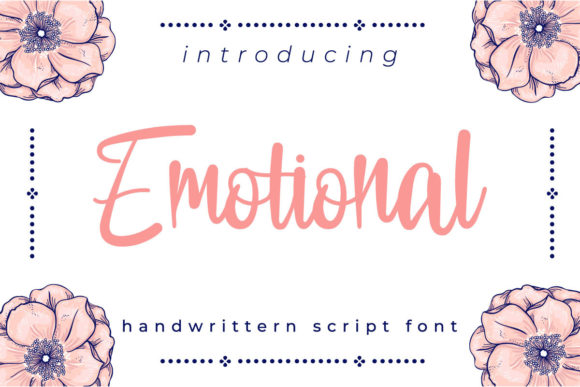
Introducing Emotional Script Font: Elevate Your Designs with Elegance
Are you on the hunt for a font that exudes sophistication, elegance, and a touch of emotional depth? Look no further than the Emotional Script Font, a stunning script font designed to capture the essence of refined typography. With its ravishing style and versatility, this font is poised to become your go-to choice for creating breathtaking designs that leave a lasting impression.
The Distinct Charm of Emotional Script Font
Emotional Script Font stands out from the crowd with its unique blend of classic script elements and modern flair. Its distinct and graceful appearance makes it perfect for a wide range of design projects, from wedding invitations and branding materials to digital content and craft projects. The font’s intricate details and flowing lines add a touch of sophistication, making any design look polished and professional.
Emotional Script Font offers a world of creative possibilities for designers and crafters. Here are just a few ways you can leverage this stunning font to elevate your designs:
- Wedding and Event Design: Create exquisite wedding invitations, save-the-date cards, and event branding materials that exude romance and sophistication.
- Branding and Packaging: Use Emotional Script Font to develop a distinctive brand identity that sets your business apart from the competition.
- Digital Content: Add a touch of elegance to your blog posts, social media graphics, and email newsletters with this versatile font.
- Crafting and DIY Projects: Perfect for crafters, this font can be used for a variety of DIY projects, such as handmade cards, journaling, and scrapbooking.
Why Choose Emotional Script Font?
With so many fonts available, why choose Emotional Script Font? Here are just a few compelling reasons:
- Unique Style: Emotional Script Font boasts a distinctive style that will set your designs apart from the crowd.
- Versatility: This font can be used for a wide range of design projects, from digital content to print materials.
- High-Quality: Emotional Script Font is crafted with attention to detail, ensuring a high-quality appearance in any design.
Get Ready to Fall in Love with Emotional Script Font
In conclusion, Emotional Script Font is a game-changer for designers and crafters seeking to infuse their work with elegance and sophistication. Its unique style, combined with PUA encoding, makes it an indispensable tool in any design arsenal. Whether you’re working on a wedding invitation, branding materials, or a DIY project, this font is sure to captivate your audience and leave a lasting impression. So why wait? Fall for the ravishing style of Emotional Script Font and unlock a world of creative possibilities today!